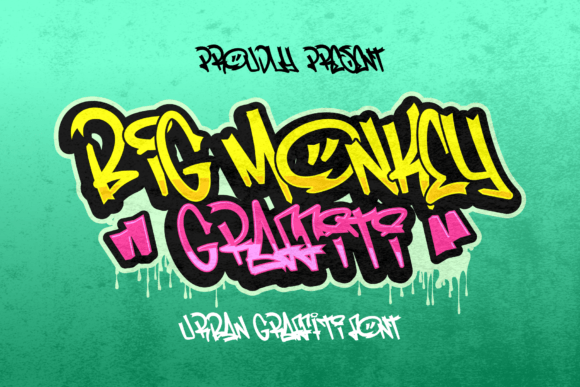
The Urban Edge of Big Monkey Font: Unleashing Graffiti Style in Your Designs
I still remember the design project that led me to discover Big Monkey Font. I was working on a bold, street-art-inspired campaign for a local skate shop, and I was struggling to find the perfect font to capture the edgy, urban vibe. That’s when I stumbled upon Big Monkey, and it instantly became the star of the show. With its oversized, bold, and rugged lettering, it was like the epitome of urban cool had landed in my design toolbox.
• ✅ Authentic Urban Style: Big Monkey Font is a game-changer for anyone looking to infuse their designs with raw, urban energy. It’s perfect for graffiti artists, street art enthusiasts, and designers seeking an edgy, rebellious vibe.
• ✅ Attention-Grabbing: The oversized, bold lettering commands attention and makes a statement. Whether you’re designing a poster, flyer, or social media graphic, Big Monkey Font is sure to turn heads.
• ✅ Versatile: Despite its bold personality, Big Monkey Font is surprisingly versatile. You can use it for titles, headings, or even body text, depending on the context and your design goals.
• ⚠️ Legibility at Small Sizes: Big Monkey Font can be a bit tricky to read at smaller sizes, so it’s best to use it for headlines, titles, or larger text elements.
• ⚠️ Limited Formality: Due to its bold, edgy nature, Big Monkey Font might not be the best choice for formal or professional designs, such as corporate branding or business presentations.
The Story Behind Big Monkey Font
Big Monkey Font was inspired by the urban art scene of the 1980s. Its creator, a type designer with a passion for graffiti, wanted to capture the raw energy and rebellious spirit of street art in a font. The result is a typeface that’s equal parts bold, edgy, and authentic.
Q: What makes Big Monkey Font so special?
A: Big Monkey Font is special because of its unique blend of bold, oversized lettering and urban grit. It’s perfect for designs that need an edgy, rebellious vibe.
Q: Is Big Monkey Font difficult to read?
A: Big Monkey Font can be a bit tricky to read at smaller sizes, but it’s designed to be attention-grabbing and bold. Use it for headlines, titles, or larger text elements for maximum impact.